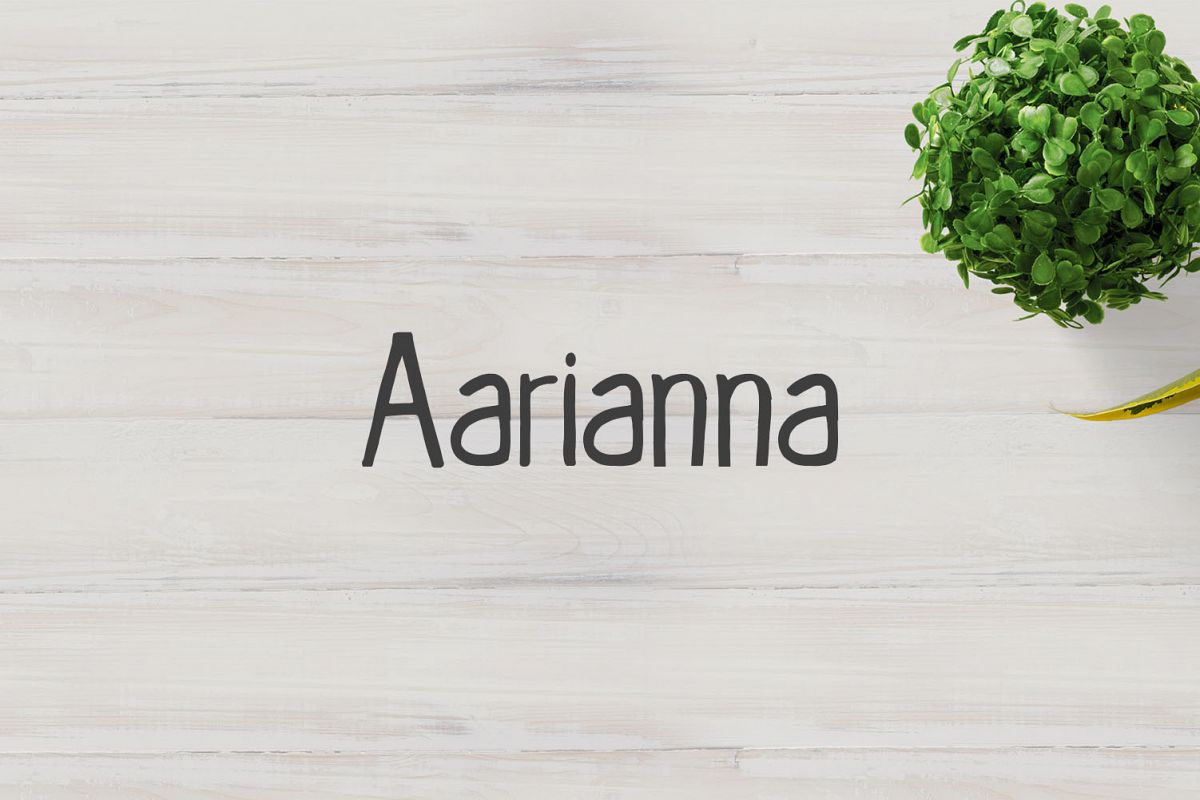
Aarianna Handmade Brush Font Family
Aarianna is a unique, bold handwritten brush font. It is suitable for prints, logos, quotes, badges, labels, headlines, banners, posters, printings, T-shirts, magazines, packaging design, blog, websites, designs, promotional product, templates, etc.
• Font Weight: Regular and Outline
Aarianna Font Features:
• Uppercase Multilingual Letters
• Lowercase Multilingual Letters
• Alternative